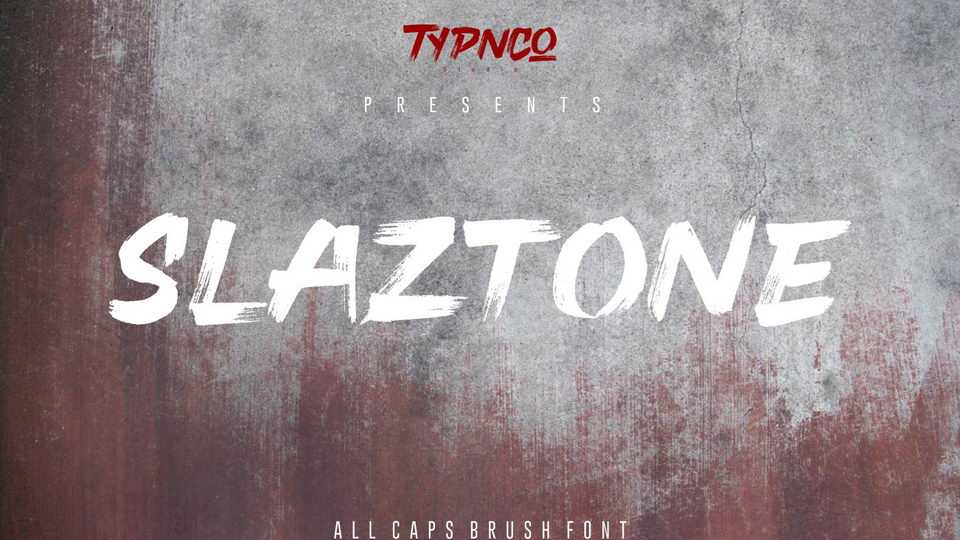
Download Slaztone is an all-caps typeface that features aggressive hand drawn brush and an italicized stance. Slaztone is perfect for your apparel, branding projects, logos, web design, posters, cards and more.
Designer: Typnco Studio